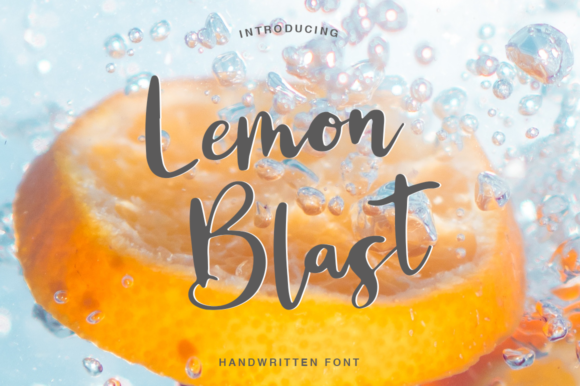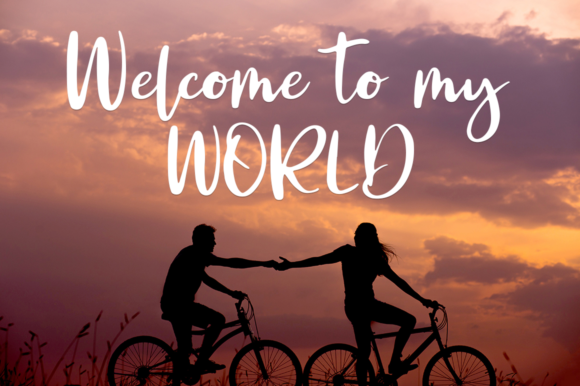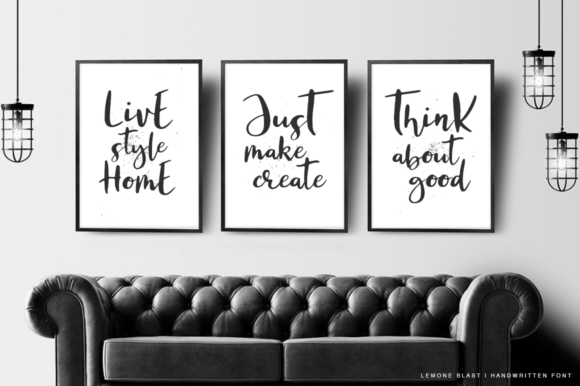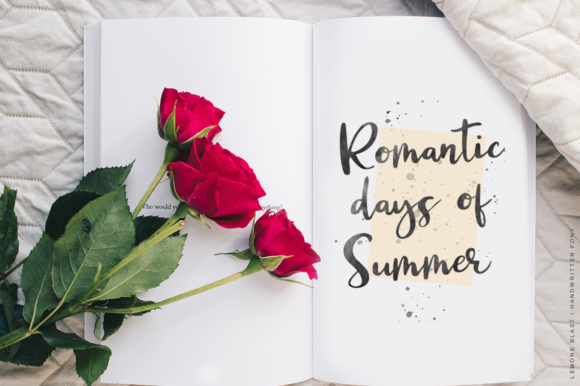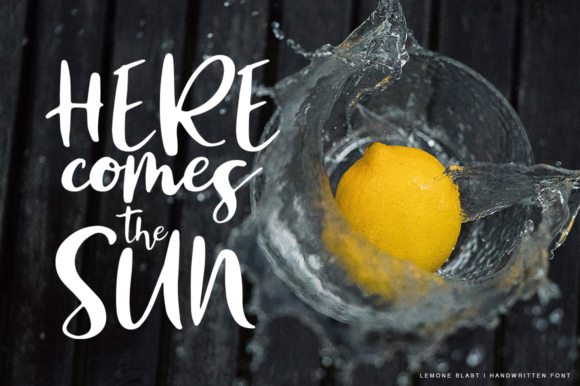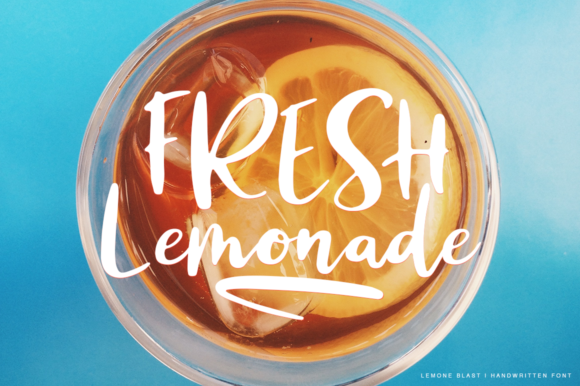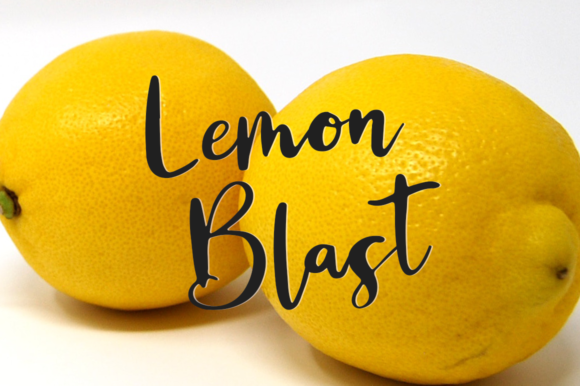
Lemon Blast Font
About Lemon Blast Font
Lemon Blast script – a new fresh handmade calligraphy font.
This font is ideal for branding and decorating different types of projects. It’s perfect for wedding invites or for your blog designs.
You can also use the font to create a stunning logo, frame or quote designs.